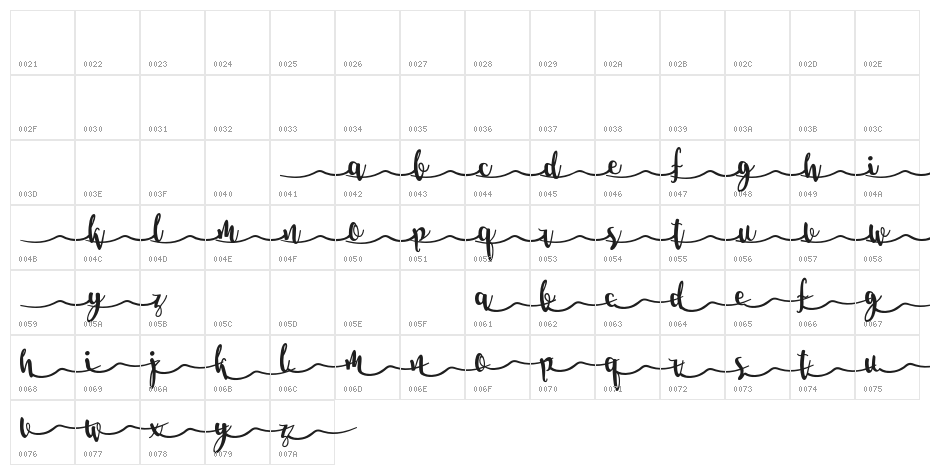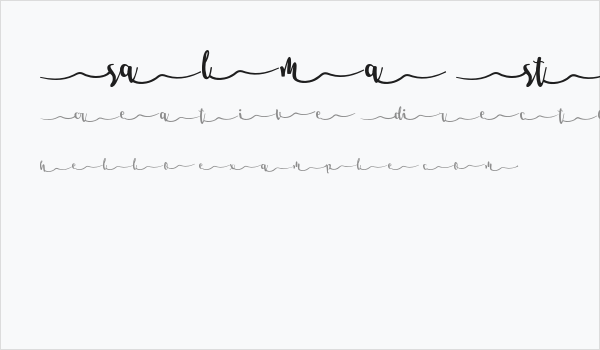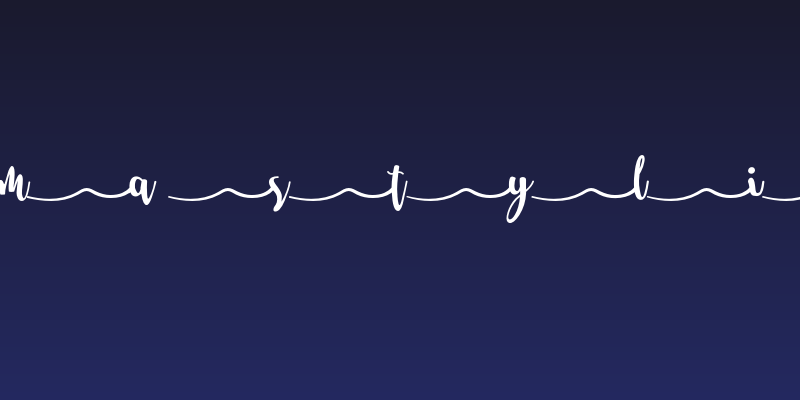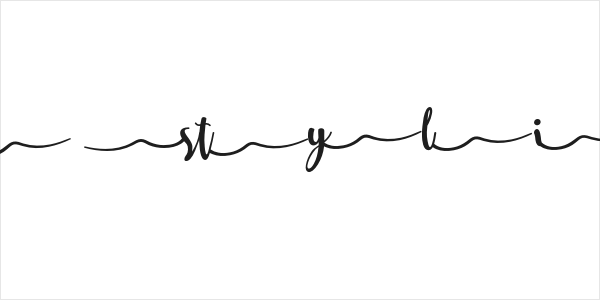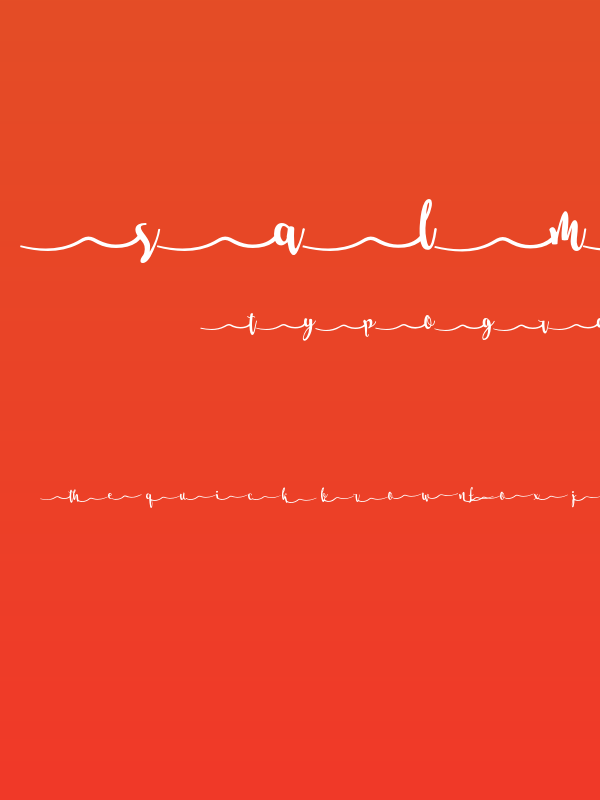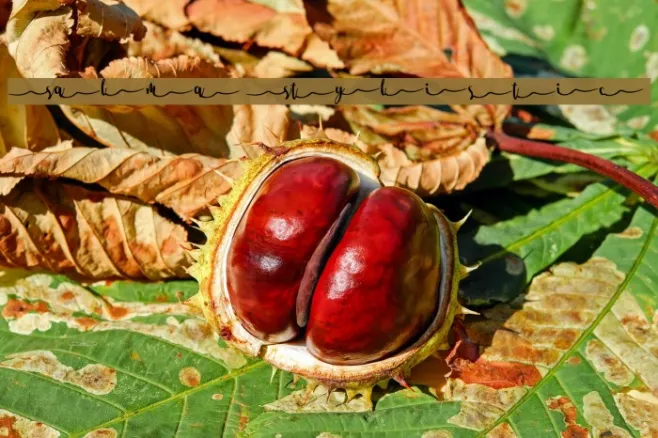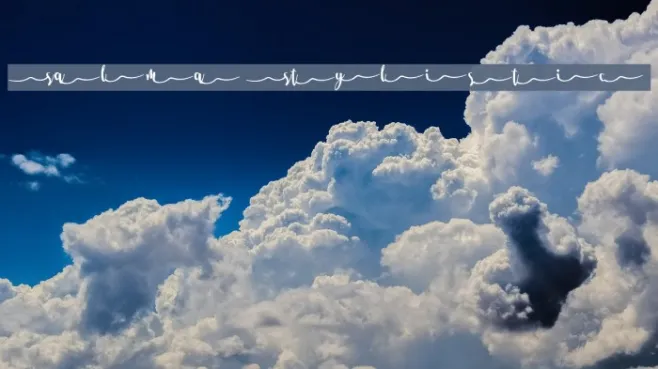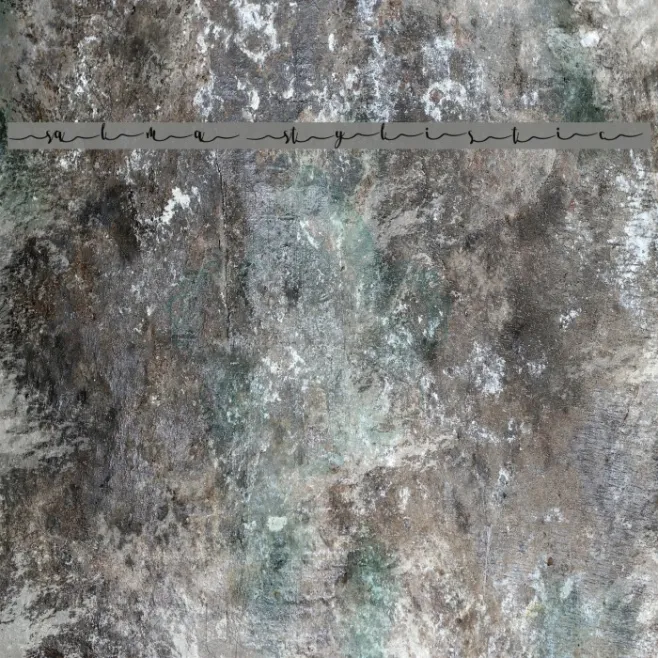
Salma Stylistic 4 Font
Salma Stylistic 4 Description
This font features a delicate, flowing script style with elegant, continuous lines that connect each letter seamlessly. The characters are crafted with a whimsical flair, showcasing loops and swirls that add a touch of sophistication and charm. The overall appearance is reminiscent of handwritten calligraphy, with a modern twist that makes it suitable for a variety of creative applications. The font maintains a consistent baseline, while the ascenders and descenders extend gracefully, enhancing its decorative appeal. It is particularly well-suited for projects that require a personal, artistic touch, such as invitations, greeting cards, and branding materials.
| Proposed Projects | Ideal for wedding invitations, greeting cards, personal branding, and artistic projects. |